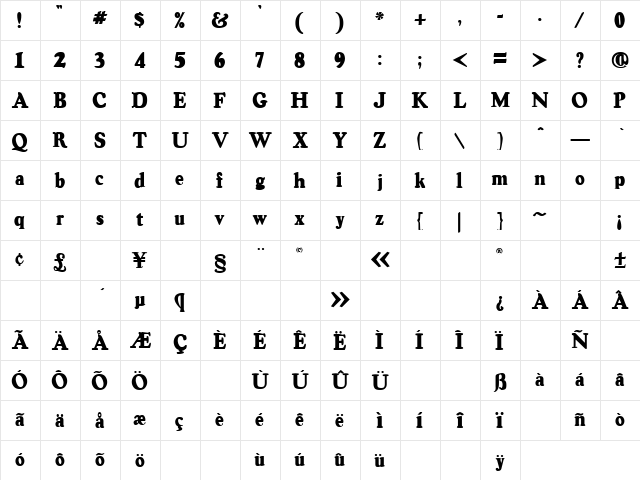
Assassination 2 Regular
Design Context for Assassination 2 Typeface
Assassination 2 offers clean, dependable letterforms without strong stylistic allegiance, making it a practical choice for designers who need flexibility.